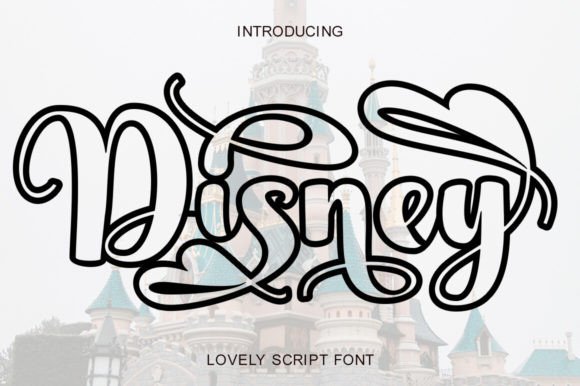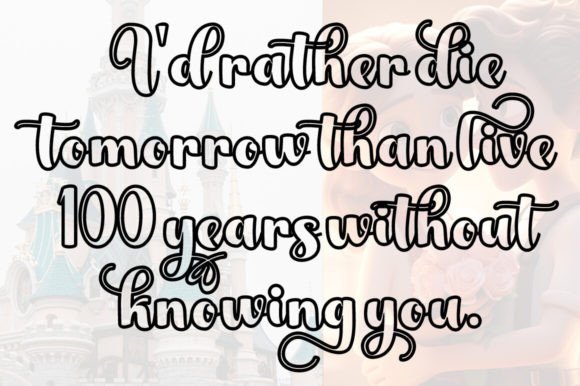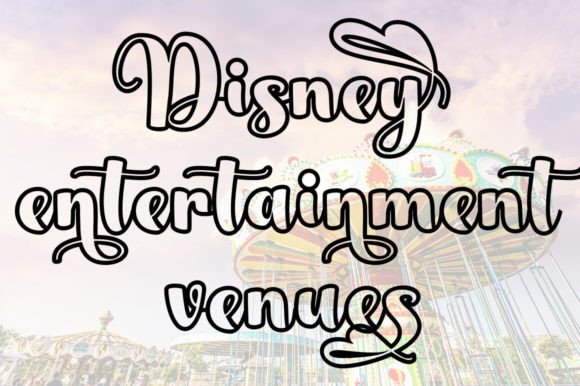
Disney Outline Font
About the Disney Outline Font
Elevate your designs with Disney Outline Font, a font that combines sophistication with readability. Disney Outline is a cute, versatile, and flexible handwritten font. Warm, romantic, and jovial, this font will turn any of your project ideas into real works of art. This font is PUA coded which means you can access all the glyphs and swashes easily, this font is complete with language support!
Disney Outline’s playful, hand-drawn quality makes it ideal for headlines, logos for children’s products, short quotes on social media, or packaging for sweet treats. It works exceptionally well in projects requiring a friendly and approachable feel. Avoid using it for body text or lengthy paragraphs; its informal style is unsuitable for large amounts of continuous reading.
Consider pairing it with a clean sans-serif like Open Sans for a balanced contrast, or a classic serif like Garamond for a more sophisticated touch. For a more whimsical outcome, a playful script font could also complement its charm.
The font’s core personality is undeniably cheerful and approachable, making it a great choice for brands targeting a young or family-oriented audience. Its limitations in readability, however, should be carefully considered before using it for projects that prioritize textual content.
Disney Outline Font Usage Examples
Disney Outline Font Example